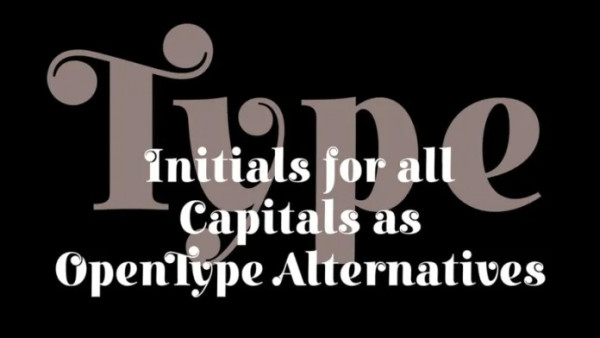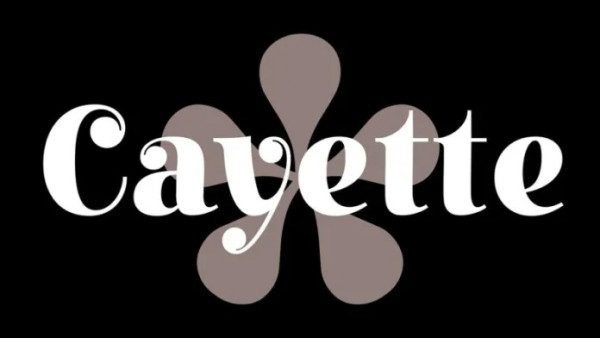
Cayette Font
Cayette Font is a beautiful upper and lower modern or nostalgic serif – with a complementary italic version. Cayette included alternate, ligature and multilingual characters.
Cayette is a modern, elegant and nostalgic font, best used as a display for headings, logos, branding, magazines, product packaging and invitations.